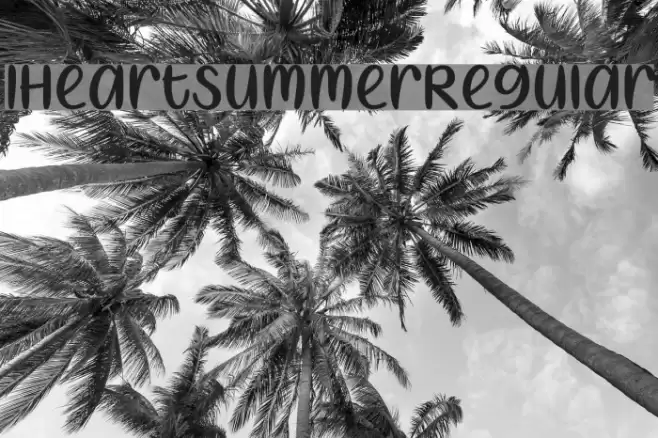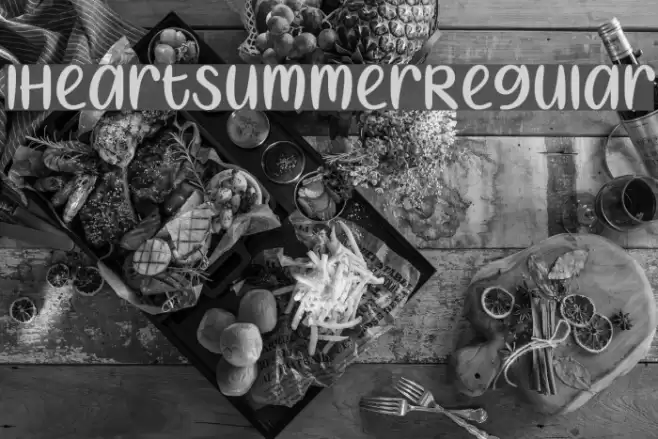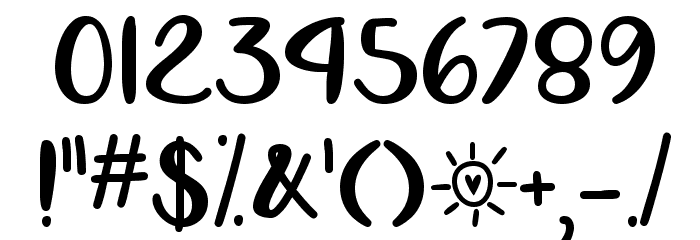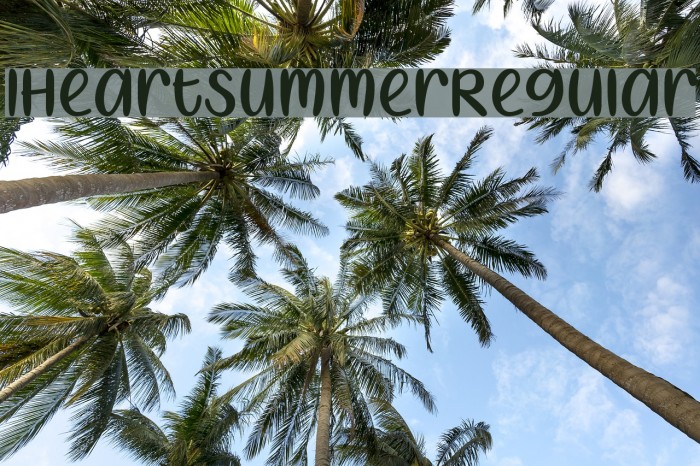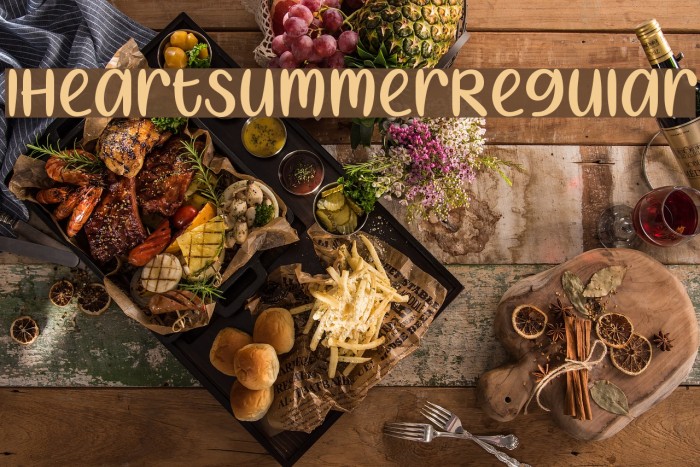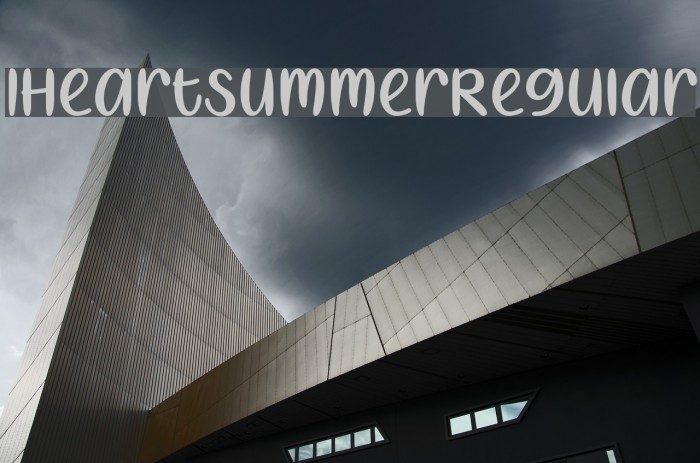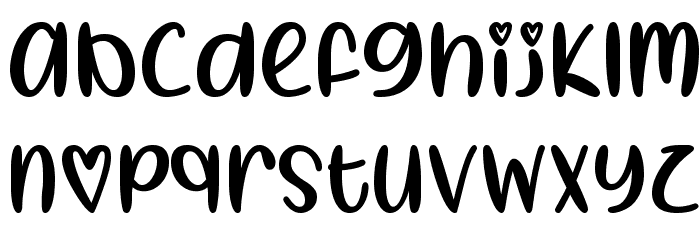
I Heart Summer Regular Font
I Heart Summer Regular Description
This playful and whimsical font features a handwritten style with a unique twist. The letters are bold and rounded, with a smooth flow that gives a sense of movement and joy. Notably, the letters 'O' and 'o' are replaced with heart shapes, adding a charming and romantic touch. The numbers and special characters maintain the same playful aesthetic, with consistent stroke thickness and rounded edges. This font exudes a sense of fun and creativity, making it perfect for projects that aim to convey warmth and friendliness.
A playful, handwritten font with heart-shaped 'O's, ideal for creative and joyful designs from Uncategorized fonts.
- Proposed Projects: Ideal for greeting cards, wedding invitations, playful branding, children's books, and social media graphics.
- Use Case: Logos, Headlines, Invitations